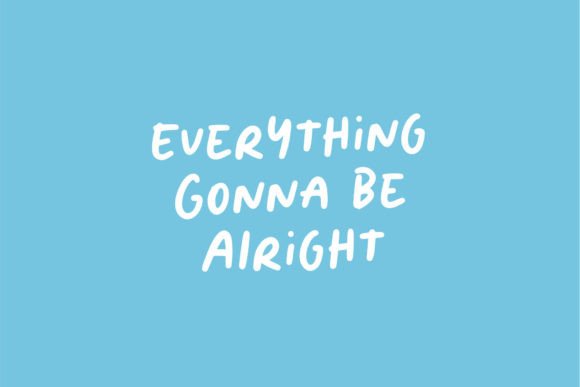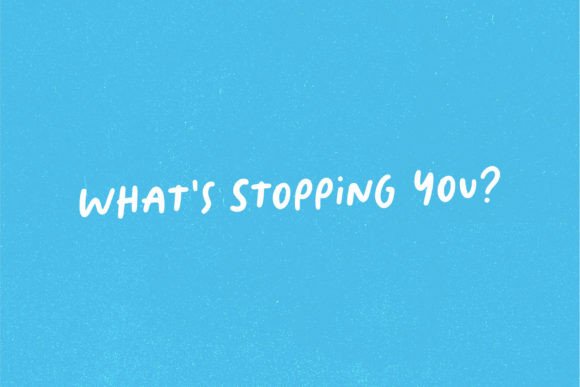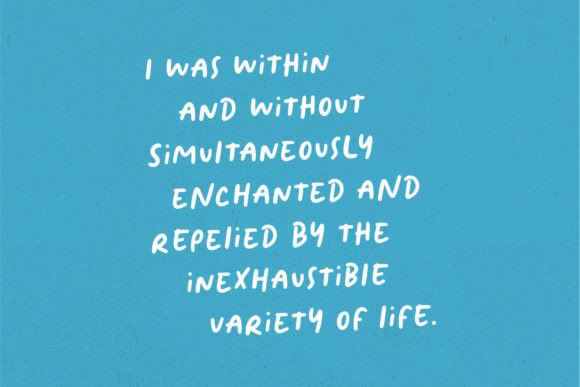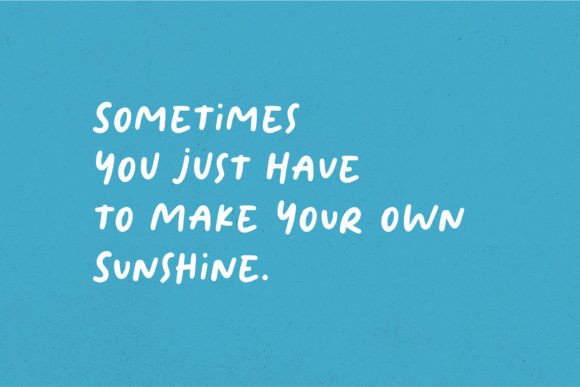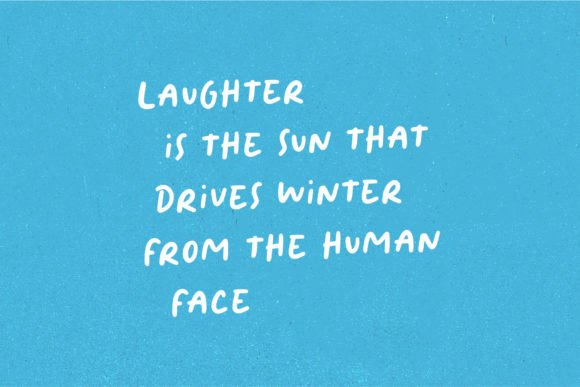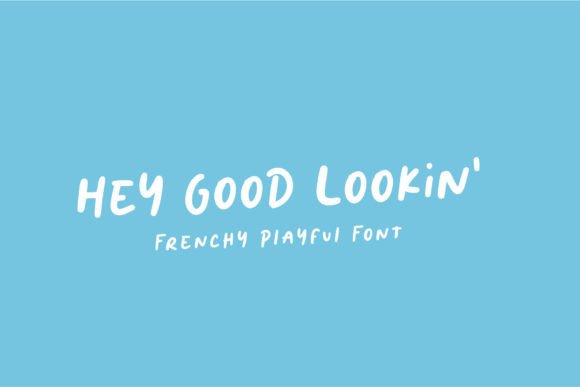
The Hand-Lettered Hero: A Deep Dive into Frenchy Font
Ah, the elusive perfect font. You know, that one that makes your social media quotes pop, your handwritten notes charming, and your logos stand out. I’ve been there, scrolling through font libraries, searching for that magic match. And then, I stumbled upon Frenchy – a delightful, hand-lettered gem that has become my go-to for adding a personal touch to projects.
My First Encounter with Frenchy
I was working on a branding project for a crafty client, and I needed a font that would capture the essence of handmade and whimsical. The brief required a font that was both elegant and approachable. I tested a few popular fonts, but none seemed to fit the bill. That’s when I discovered Frenchy. Its unique blend of cursive and print-like qualities immediately won me over. I knew right then and there that Frenchy was the perfect fit.
An Honest Review of Frenchy
- ✨ Unique Character: Frenchy has a distinct personality that sets it apart from other hand-lettered fonts. Its quirky charm makes it perfect for creative projects.
- ✅ Highly Legible: Despite its handwritten nature, Frenchy remains clear and easy to read, even at smaller sizes.
- 💫 Versatile: Use Frenchy for social media quotes, logos, notes, or any project requiring a personal touch.
While Frenchy is an excellent font, it’s not without its quirks. For instance:
- ⚠️ Limited Formality: Frenchy’s casual nature makes it less suitable for very formal or corporate projects.
- 🤔 Glyph Variety: While Frenchy comes with a range of glyphs, it might not have every special character you need. Be sure to check the font’s capabilities before committing to a project.
The Backstory of Frenchy
While the origins of Frenchy might be shrouded in mystery, it’s easy to imagine a designer, inspired by the streets of Paris, crafting this font with love and care. Perhaps they wanted to bottle the essence of French flair and whimsy, making it accessible to designers worldwide. Whatever the story, Frenchy has captured hearts and is sure to inspire many creative projects.
| Font Name | Frenchy Font |
| Author | jimtypestudio |
Q: What makes Frenchy unique?
A: Frenchy’s unique blend of hand-lettered elegance and whimsy makes it stand out. Its characters are carefully crafted to evoke a sense of personality and charm.